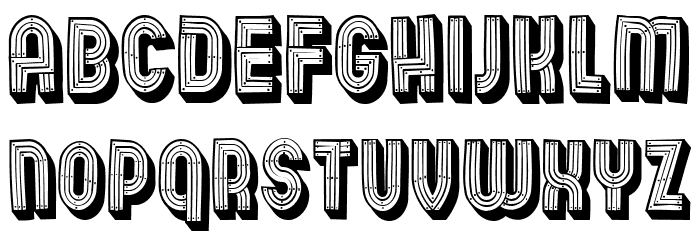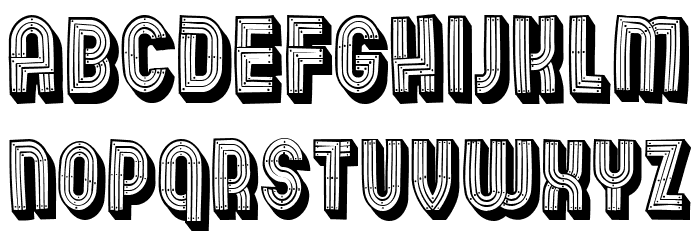
Wooden Planks Bold Font
This font features a bold, three-dimensional design with a wooden plank texture, giving it a rustic and robust appearance. The letters are capitalized and have a shadow effect that enhances the 3D look. Each character is outlined, adding depth and a handcrafted feel. The style is reminiscent of vintage signage or old western aesthetics, making it ideal for projects that require a strong, eye-catching headline. The intricate detailing within each letter suggests a sense of craftsmanship and attention to detail, making it suitable for creative and decorative purposes.
A bold, 3D font with a wooden texture and vintage appeal.
- Font: Wooden Planks Bold
- Proposed Projects: Ideal for posters, signage, branding, and any project needing a rustic, vintage touch.
- Overall Style: Vintage